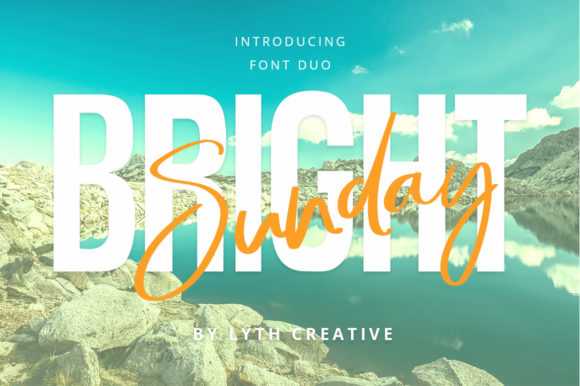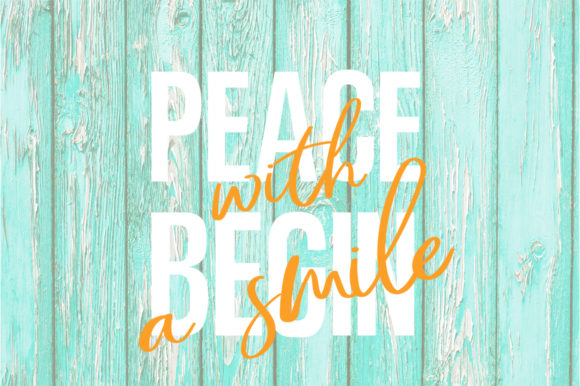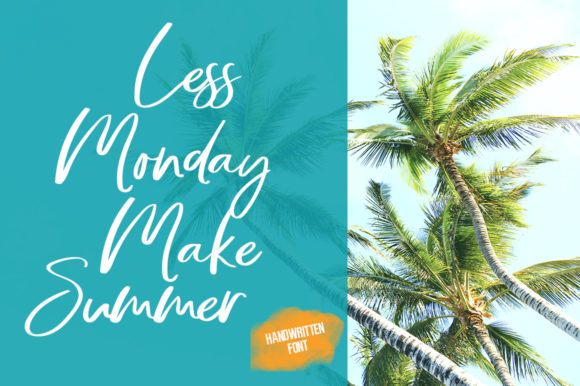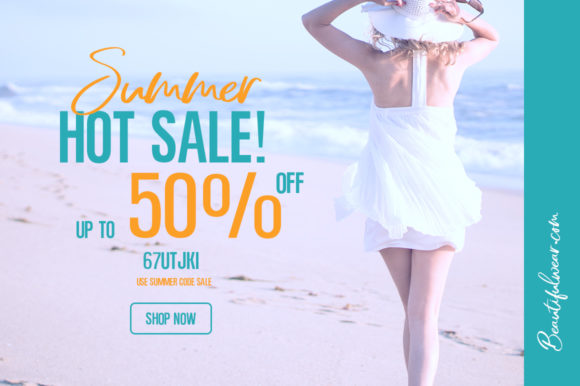
Bright Sunday Font
About the Bright Sunday Font
Add a touch of class to your work with the Bright Sunday Font, a truly exceptional typeface. Bright Sunday is a cool and charming font duo. When combined, these two fonts will add a unique spark to any design project!
Bright Sunday’s playful charm makes it ideal for headlines, short text blocks on posters, and branding elements where a touch of whimsy is desired. It works exceptionally well for packaging of products targeting a younger demographic or those with a lighthearted brand identity. However, its delicate nature makes it unsuitable for body text or UI elements requiring high readability.
The overall personality of Bright Sunday is cheerful and approachable, yet sophisticated enough to avoid appearing childish. Its unique character lends itself well to projects requiring a blend of approachability and visual interest.
Bright Sunday Font Usage Examples
Bright Sunday Font Example